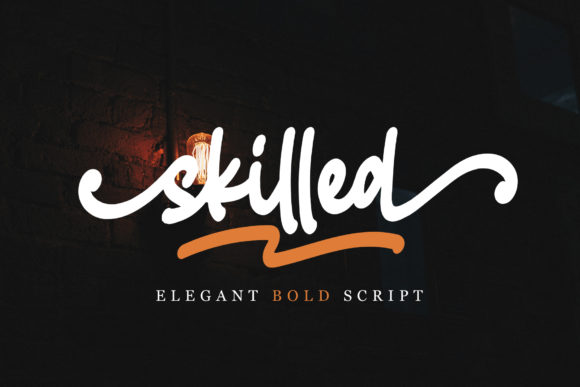
Behold Skilled Font, the Script that Dances with Energy and Timeless Appeal
Prepare to be captivated by Skilled Font, the extraordinary script font that exudes vibrancy and timeless charm. Crafted by the ingenious minds at Eifets, Skilled is not merely a font; it's an artistic expression, a stroke of brilliance that will elevate your creative projects to new heights.
Immerse yourself in the world of Skilled Font and let your imagination soar. Its thick, playful strokes dance across the page, captivating the eyes with their energetic flair. Each letter is a piece of art, meticulously designed to evoke a sense of joy and exuberance.
With Skilled Font, you'll discover a font that's as versatile as it is captivating. Its bold presence commands attention, making it the perfect choice for headlines, logos, and posters. Yet, its playful nature lends itself beautifully to invitations, greeting cards, and social media graphics.
Skilled Font is more than just a collection of letters; it's an invitation to unleash your creativity. Its timeless appeal ensures that your designs will remain relevant and captivating for years to come. Join the league of creative visionaries who have fallen in love with Skilled Font's infectious energy and timeless charm.
Imagine the excitement of your audience as they encounter your designs adorned with Skilled Font. Its bold strokes will grab their attention, while its playful charm will leave them smiling. Skilled Font has the power to transform your projects into vibrant expressions of creativity, leaving a lasting impression on all who behold them.
Don't settle for ordinary fonts that blend into the background. Embrace Skilled Font, the script that dances with energy and timeless appeal. Let your designs radiate with personality, capturing the hearts of your audience. Embrace Skilled Font today and embark on a journey of creative liberation.